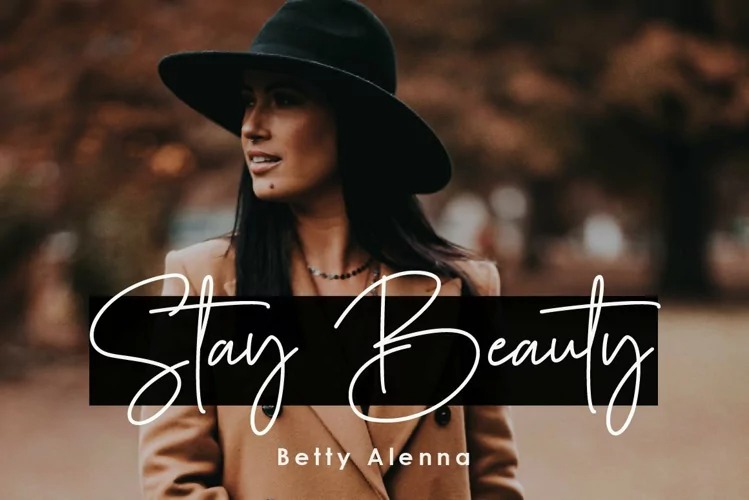
Bristone Handwritten Font
This is modern classy calligraphy font, this font come with beautiful ligature and lovely alternate. Slim, graceful, and flowing, this font will definitely elevate the look of any of your beautiful creations while keeping them grounded and natural. This font is PUA encoded which means you can access all of the glyphs and swashes with ease!